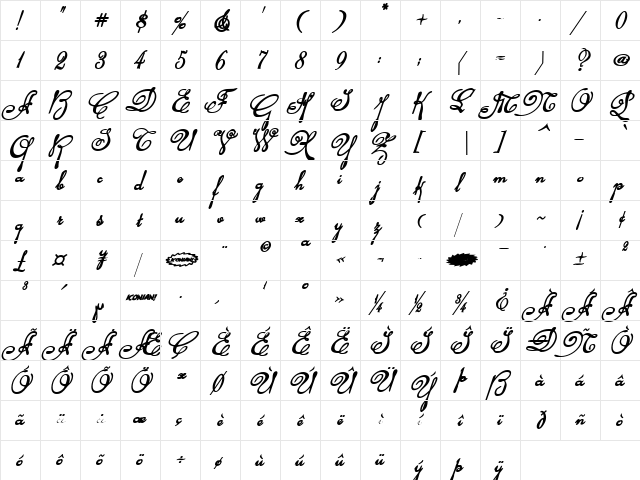
Rhalina Bold Italic Bold Italic
Design Context for Rhalina Bold Italic Typeface
Rhalina Bold Italic is a composed and adaptable typeface that performs quietly and consistently across a wide range of design contexts. The dynamic lean of this cut emphasises speed and emphasis in any layout. Its bold stroke weight gives it real presence on the page.